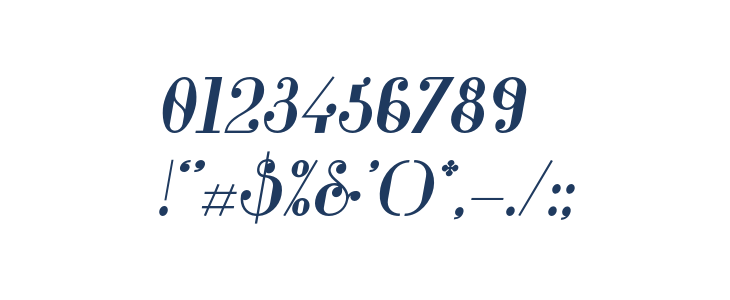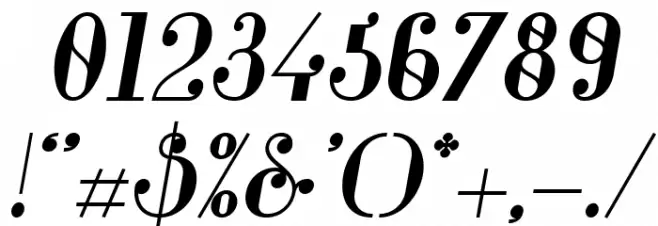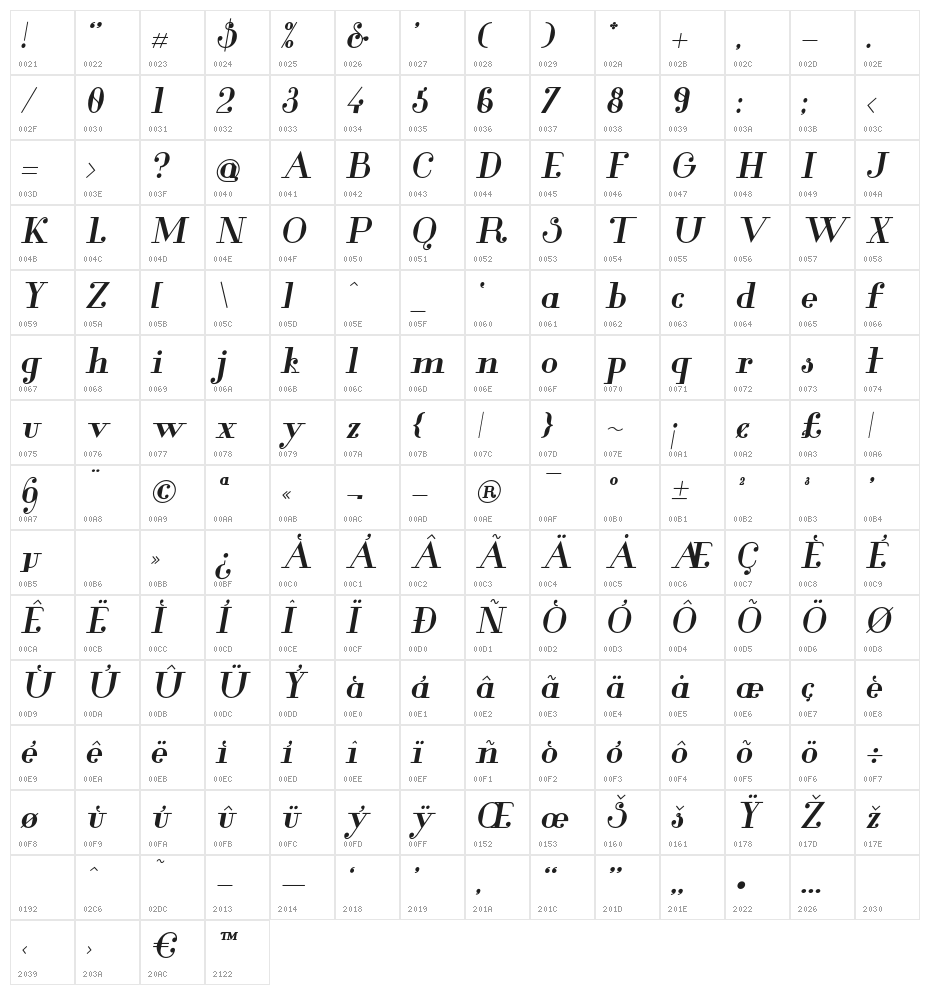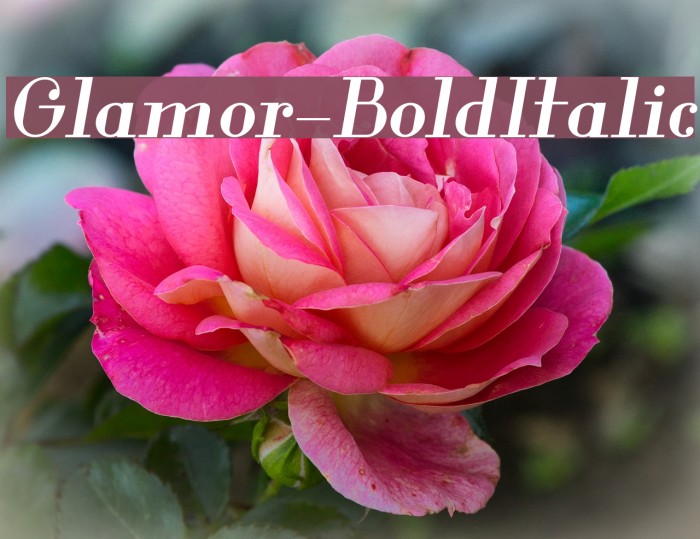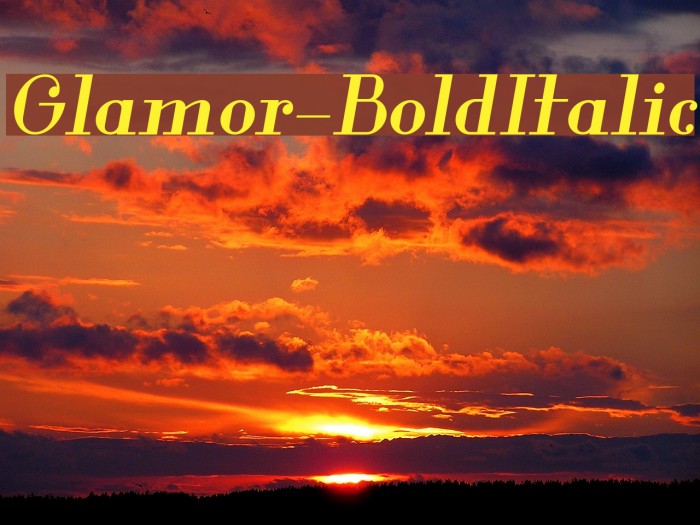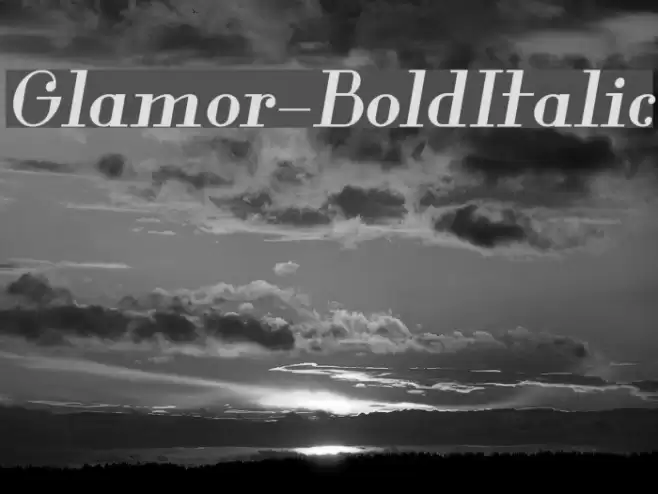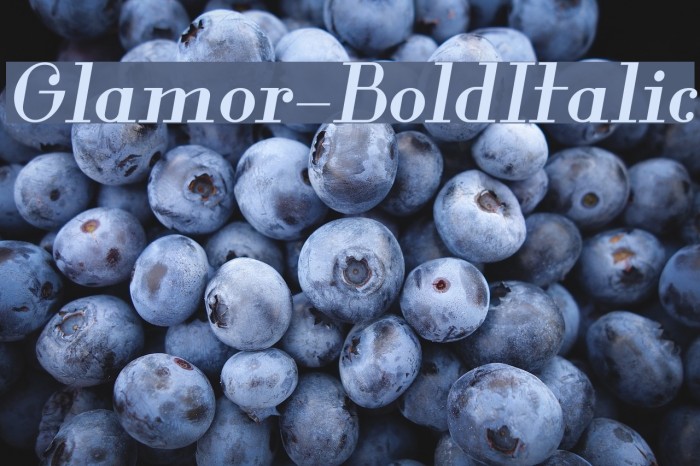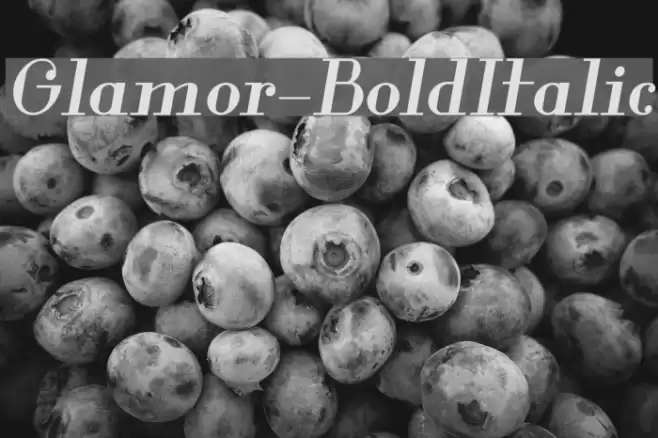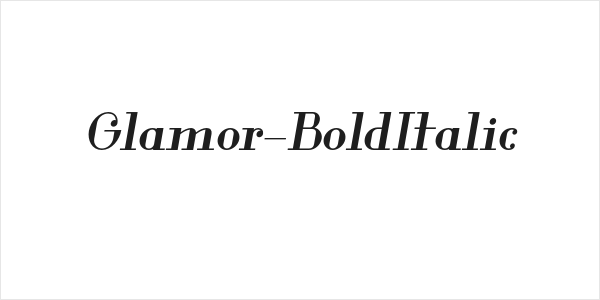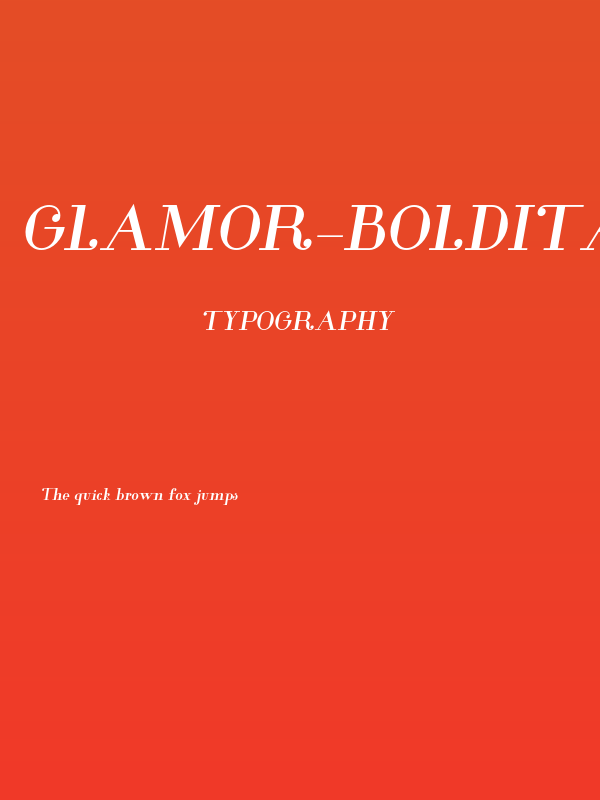
Glamor-BoldItalic Font
Glamor-BoldItalic Description
This font features a sophisticated and elegant design with a bold and italicized style. The characters exhibit high contrast between thick and thin strokes, giving it a dramatic and stylish appearance. The serifs are pronounced, adding a touch of classic elegance, while the italic slant provides a sense of movement and dynamism. The overall design is refined, making it suitable for upscale and formal applications. The numerals and special characters maintain the same elegant style, ensuring consistency across all text elements.
| Overall Style | Elegant, Classic |
| Proposed Projects | Ideal for luxury branding, high-end fashion magazines, wedding invitations, and elegant packaging designs. |